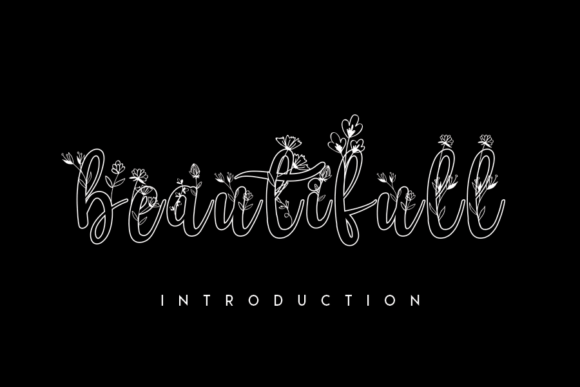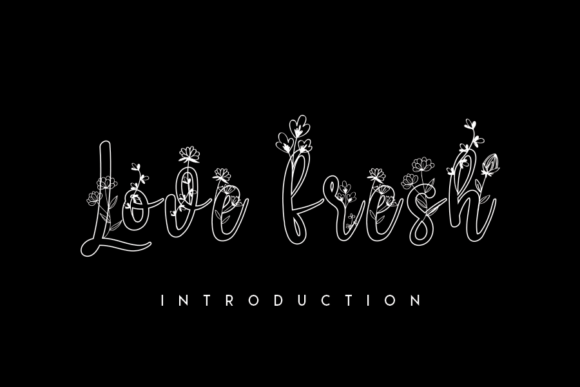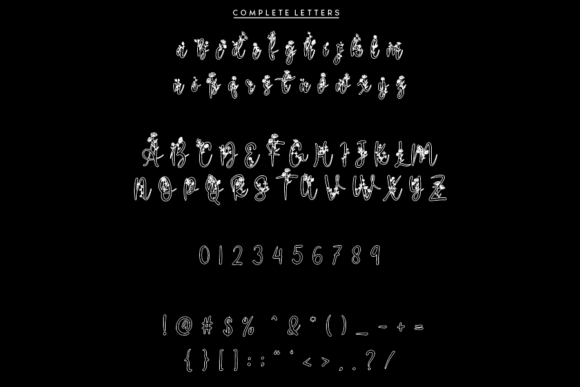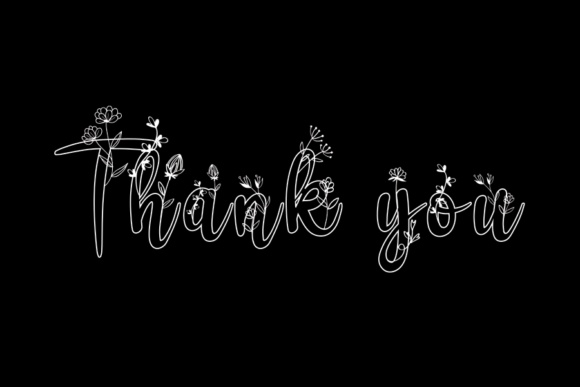
Introduction to Flower Fresh Font
Flower Fresh is a magical display font carefully created with a touch of elegance.
It features flower-themed characters that will take your designs to the next level It’s perfect for stationery, wedding invitations, photography, packaging and much more.
Key Features of Flower Fresh Font